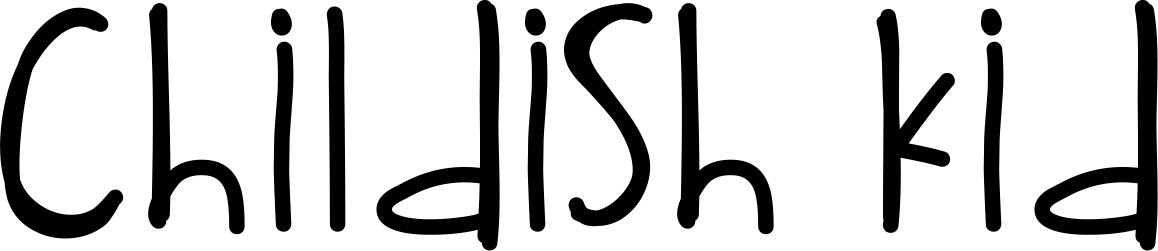
Childish Kid Font
Childish Kid is a cute doodle font that has a childish style. This font has handwriting and an informal element with itself that makes it a good option for cartoons, kids’ and comic books, flyers, apparel design, and man…
Childish Kid is a cute doodle font that has a childish style. This font has handwriting and an informal element with itself that makes it a good option for cartoons, kids’ and comic books, flyers, apparel design, and many more. This font can offer you about 100 characters with only the lowercase of the alphabet.